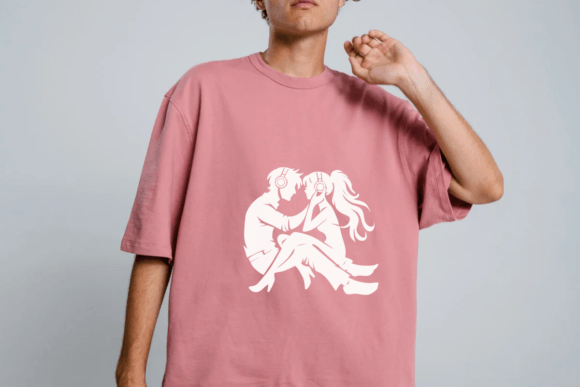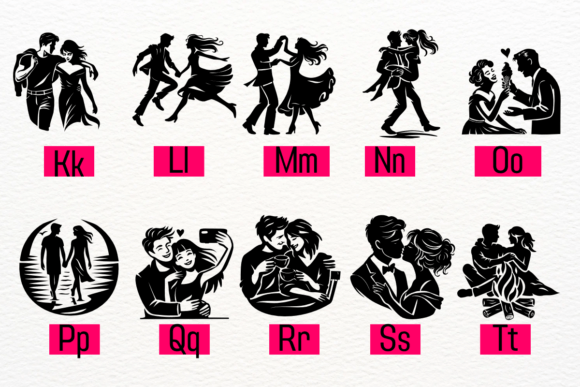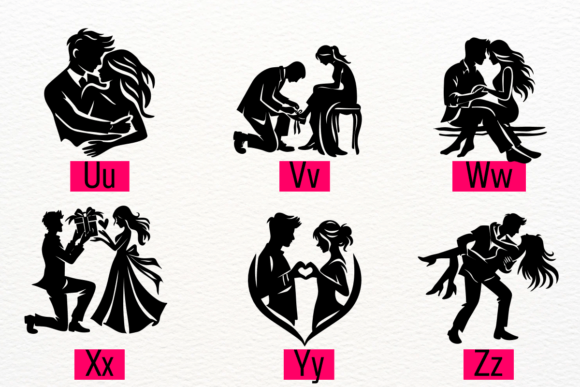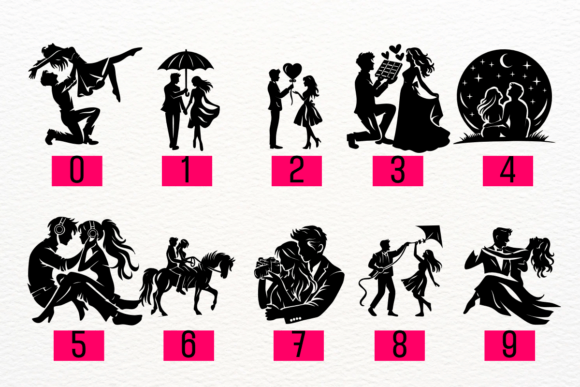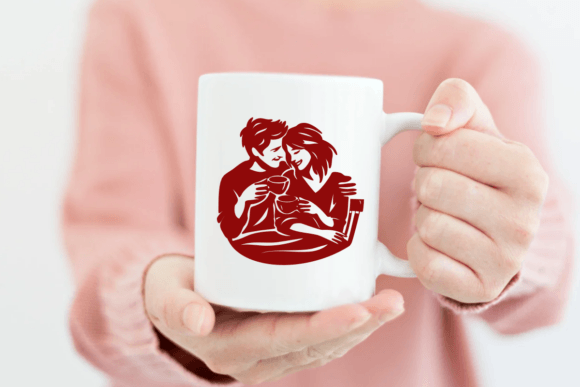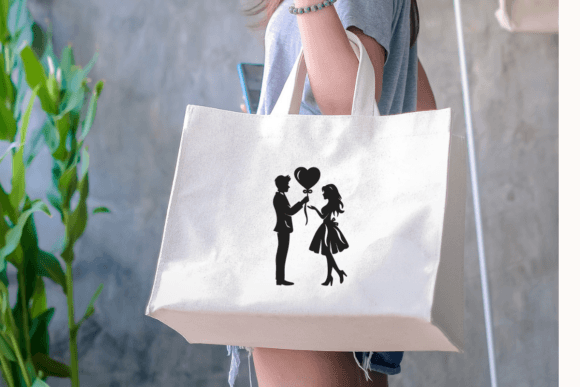
Celebrate the Beauty of Love with Couple Valentine Font
Valentine’s Day is just around the corner, and what better way to express your love and affection than with a beautiful font that captures the essence of romance? Look no further than Couple Valentine, a charming dingbats font that features romantic silhouettes of couples in heartfelt moments. This lovely font is perfect for Valentine’s Day designs, wedding invitations, anniversary projects, and any creative work that celebrates the beauty of love and connection.
A Font that Speaks to the Heart
Couple Valentine is more than just a font – it’s a way to convey your emotions and add a touch of romance to your designs. The font features a range of romantic silhouettes, from couples embracing to lovers gazing into each other’s eyes. Each glyph is carefully crafted to evoke a sense of warmth, love, and connection, making it perfect for any project that requires a touch of whimsy and romance.
Perfect for Valentine’s Day Designs
Valentine’s Day is a time to celebrate love and affection, and Couple Valentine font is the perfect tool to help you create beautiful designs that capture the essence of this special day. Whether you’re designing greeting cards, social media posts, or even t-shirts, this font will add a touch of romance and whimsy to your work. With Couple Valentine, you can create stunning designs that will make your loved ones feel special and cherished.
Ideal for Wedding Invitations and Anniversary Projects
Weddings and anniversaries are special occasions that celebrate the love and commitment between two people. Couple Valentine font is an excellent choice for wedding invitations, anniversary cards, and other projects that require a romantic and elegant touch. The font’s beautiful silhouettes of couples will add a touch of sophistication and romance to your designs, making them truly unforgettable.
Effortlessly Add a Touch of Romance to Your Designs
Key Features of Couple Valentine Font
- Charming dingbats font featuring romantic silhouettes of couples
- Perfect for Valentine’s Day designs, wedding invitations, anniversary projects, and more
- Beautifully crafted glyphs that evoke a sense of love and connection
- Ideal for designers, crafters, and anyone who loves to create romantic designs
Tips for Using Couple Valentine Font
Here are some tips for using Couple Valentine font in your designs:
- Use the font in combination with other romantic fonts to create a stunning design
- Use the font to create a focal point in your design, such as a beautiful header or title
- Don’t be afraid to get creative and try new things – Couple Valentine font is versatile and can be used in a variety of design projects